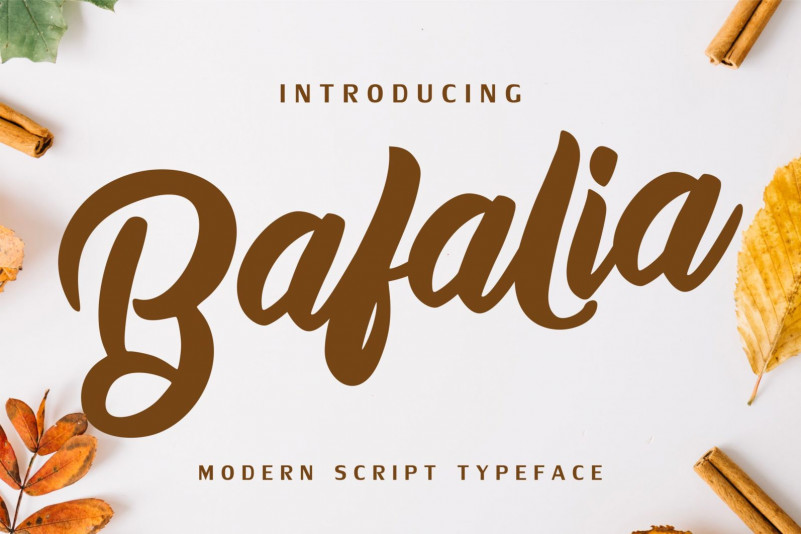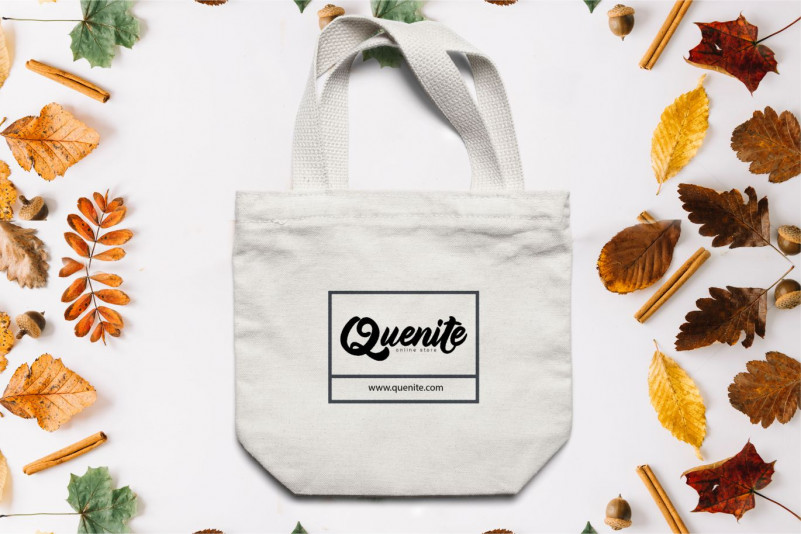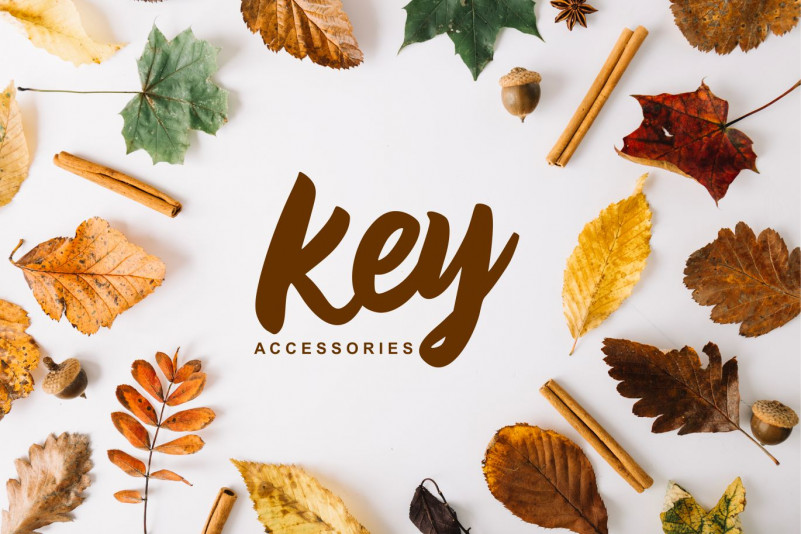
Bafalia Font
Bafalia – Modern Script Font
So beautiful on invitation like greeting cards, branding materials, business cards, quotes, posters, and more!